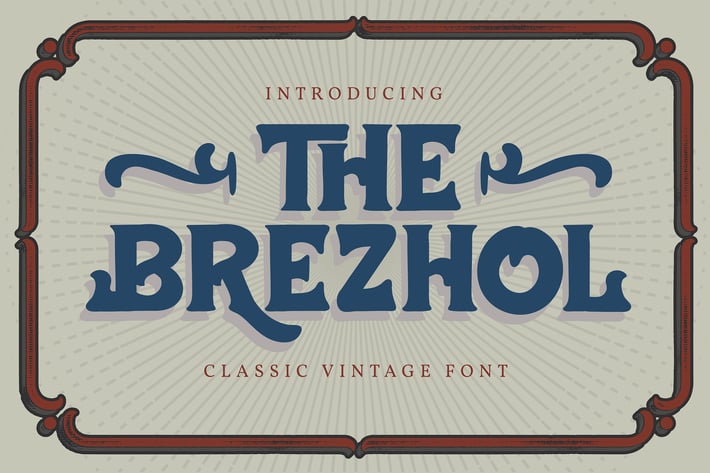
The Brezhol | Classic Vintage Font
The Brezhol | Classic Vintage Font with a calligraphy style, So beautiful on invitation like greeting cards, branding materials, business cards, quotes, posters, and more!